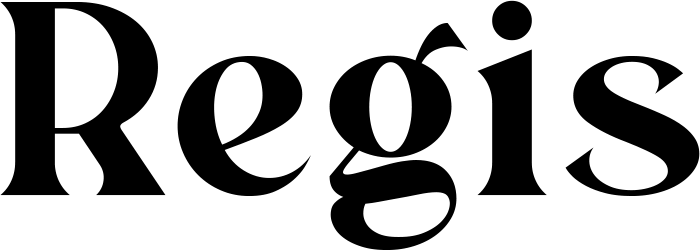
Regis Font
Regis is a serif font and can level up your typography projects in the best way possible. The letters are semi-bold and fit branding, fashion, Russian cards, and any situation you consider. Just tap on the download button and inspire your clients. Want more of this collection? Discover RB and enjoy our categorized library.